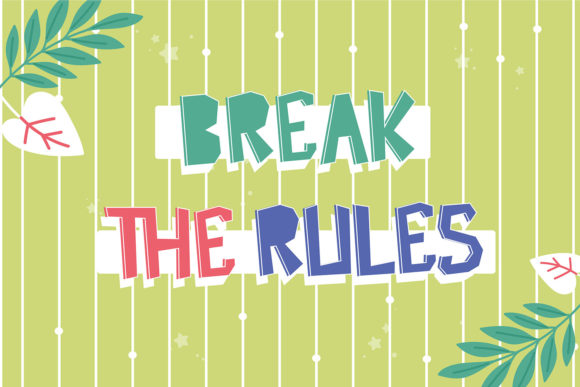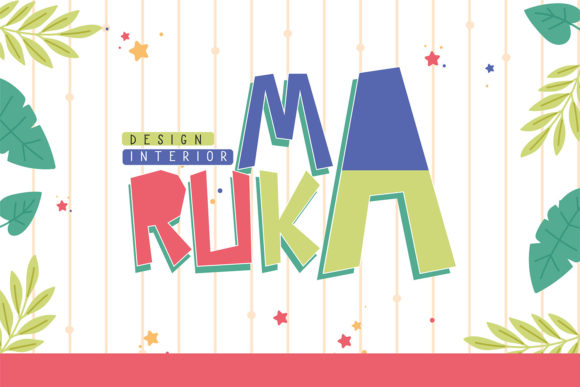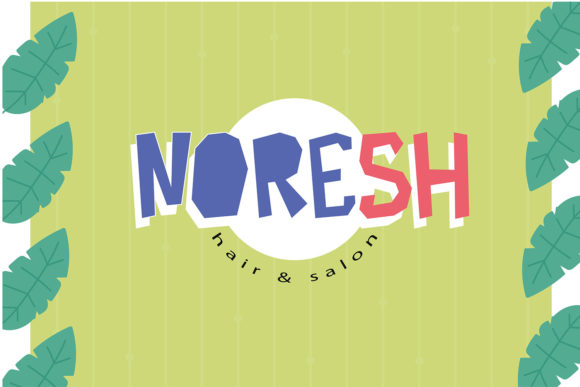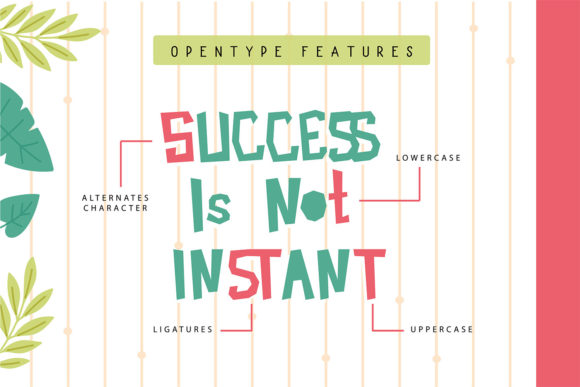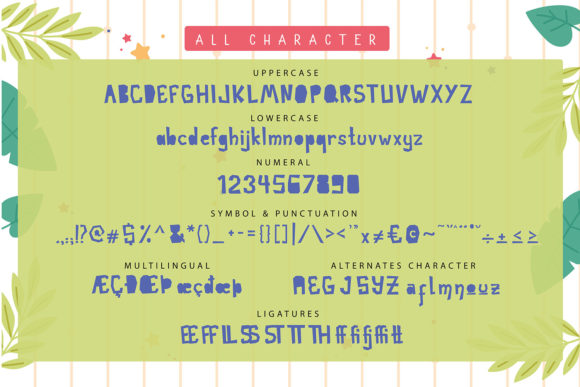
Introduction to Paperina Font
Paperina is a cool and uniquely designed display font.
It is PUA encoded which means you can access all of the glyphs and swashes with ease It embodies playfulness and authenticity and is the perfect choice for any children activity or school project.
Key Features of Paperina Font
Why Choose Paperina Font?